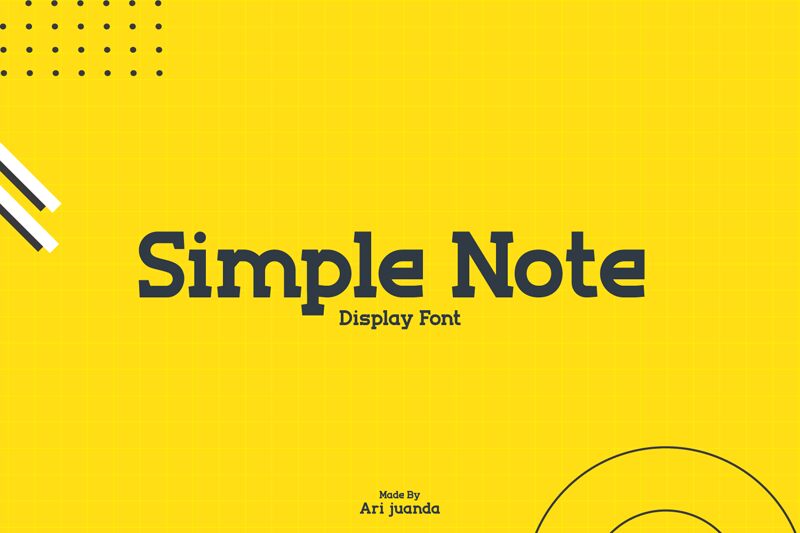
Simple Note, a captivating serif typeface crafted by Linecreative, exudes a timeless charm that captivates the eye. With its clean lines and elegant curves, this font emanates a sense of refinement and sophistication. Each letter is meticulously designed, striking a harmonious balance between modern aesthetics and traditional sensibilities. The result is a typeface that seamlessly blends the past and present, creating a visually compelling and versatile typographic experience.
The versatility of Simple Note makes it a valuable asset for a wide range of design applications. From editorial layouts to branding and packaging, this font's versatility shines through, effortlessly complementing both contemporary and classic design styles. Its distinct personality lends itself particularly well to projects that require a touch of elegance and timelessness, whether it's in the realms of print or digital media.
Simple Note